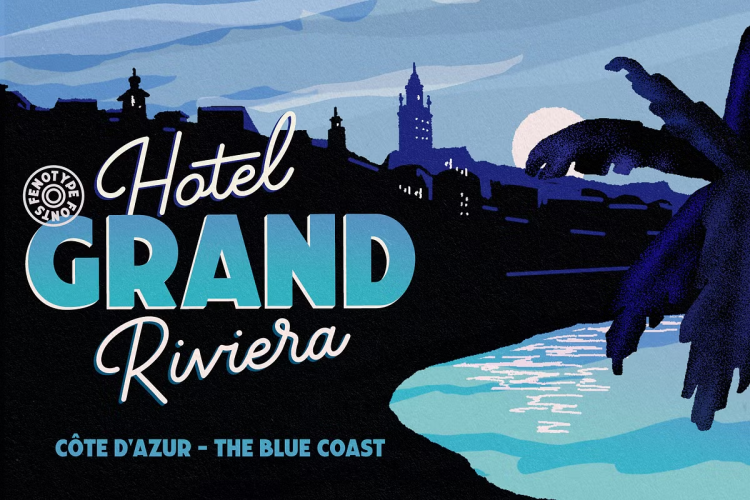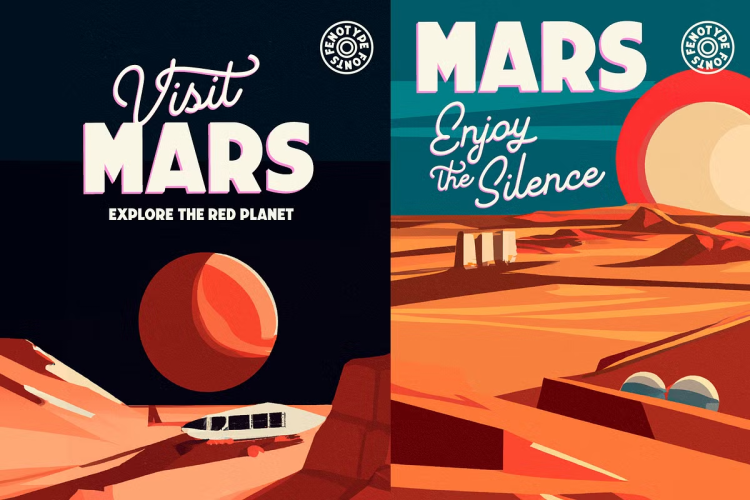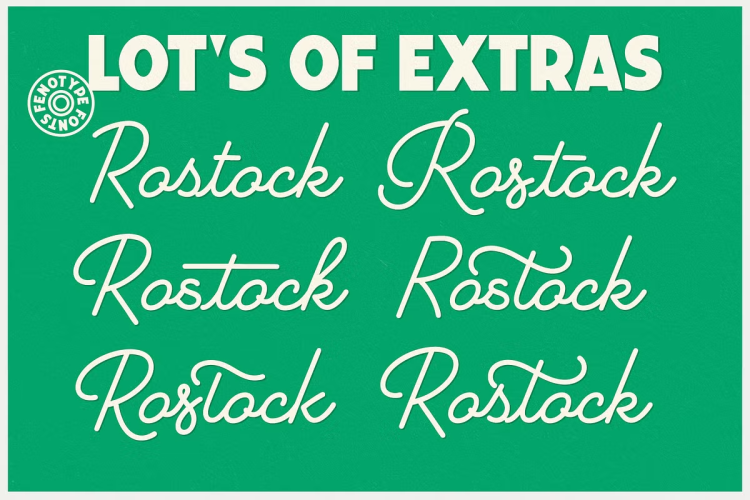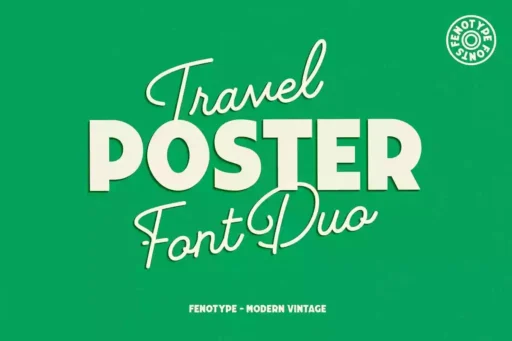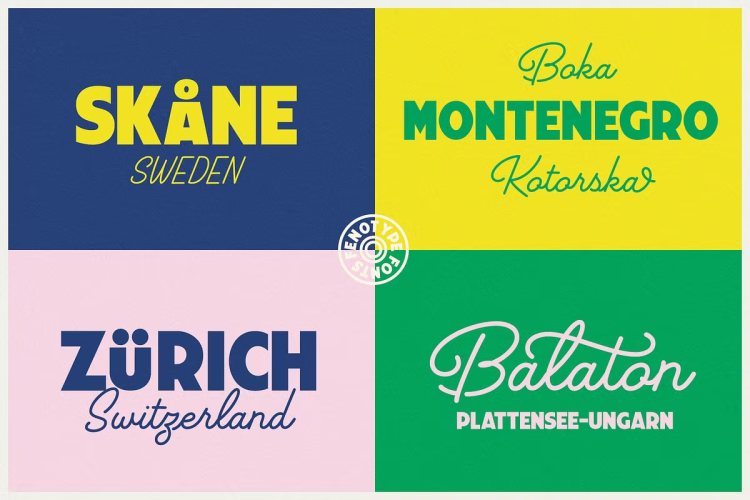
Travel Poster Font
Fenotype’s Travel Poster fonts are very nice. The Sans is big and written in a casual style, and the Script is one line and has a low x-height. Due to their good compatibility, these fonts are great for many design tasks.
In OpenType, you can change the Swash and Titling styles and use the Small Caps change for Script’s smaller capital letters. When you create, let Contextual Alternates make sure that the links between your letters look good. With Sans’s low-accented letters, text moves more smoothly and is easier to read.
You can use a travel poster for many things, like branding, book covers, and signs. The two fonts go well together and are easy to pair with other fonts because they are both simple.
Travel Poster Font is a Script And Handwritten font that brings a professional and versatile look to your projects. Fenotype’s Travel Poster fonts are very nice.